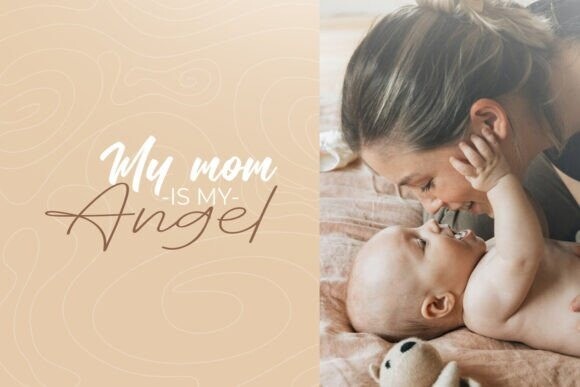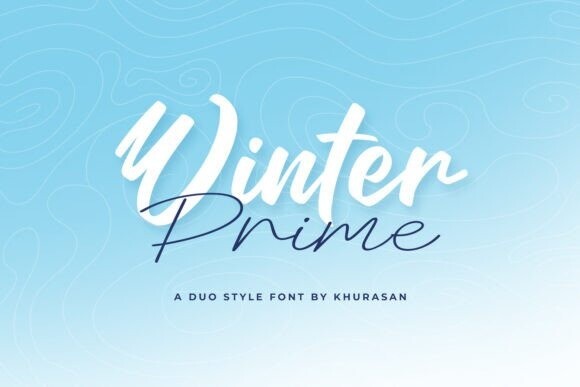
Winter Prime Font
Designer: Khurasan
Winter Prime Font is a clean, stylish, modern and elegant handwritten double font, perfect for posters, logos, magazines, book covers, winter-themed banners, Christmas and more! Get this amazing font, and use it to create beautiful designs. This font can be easily adapted to various projects, so add it to your creative ideas and see the results!